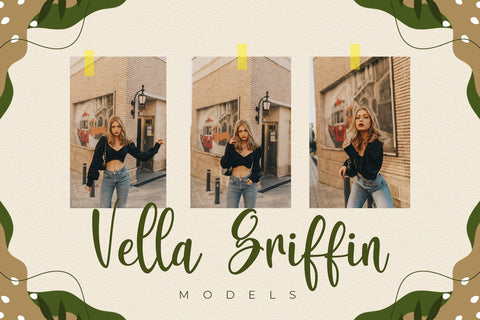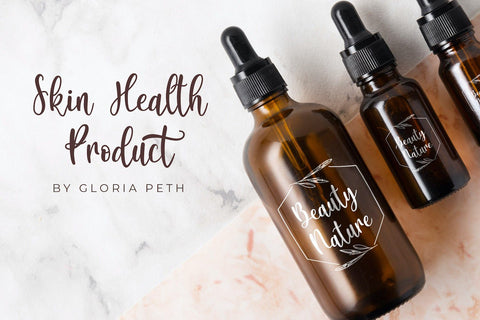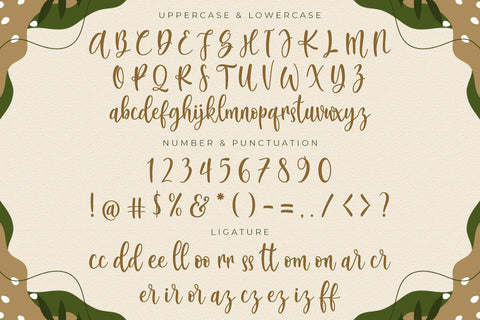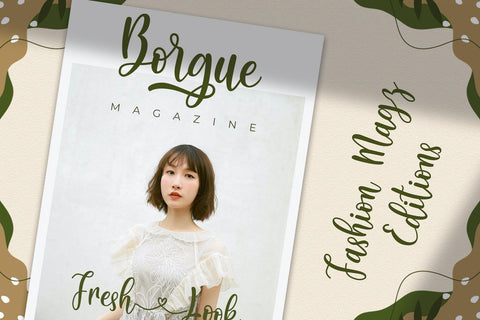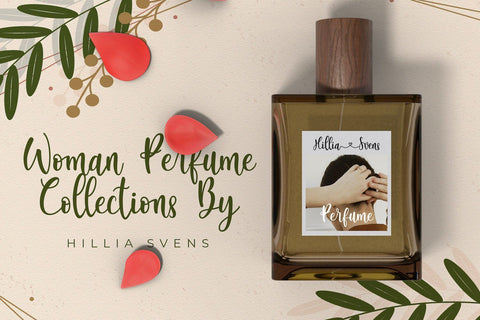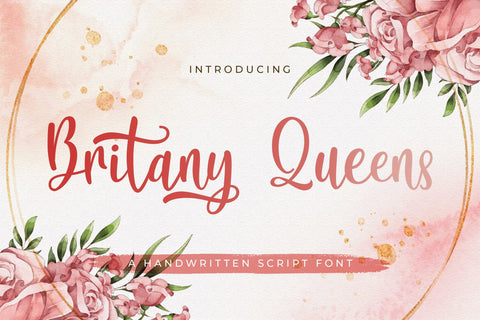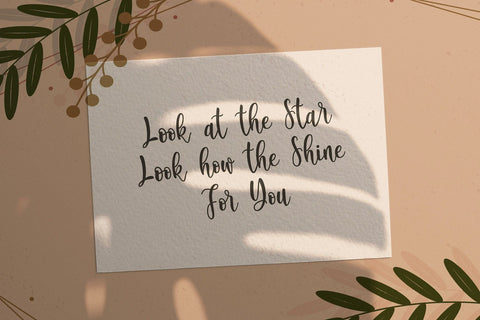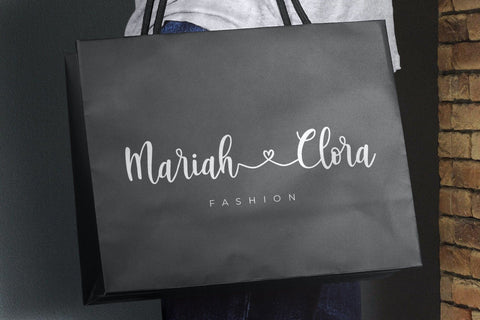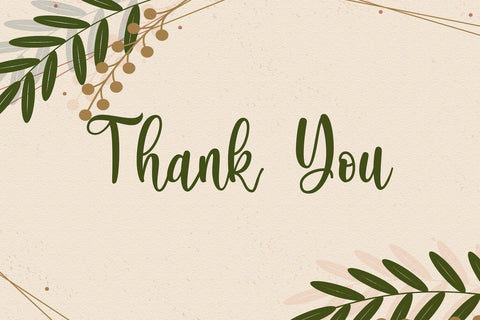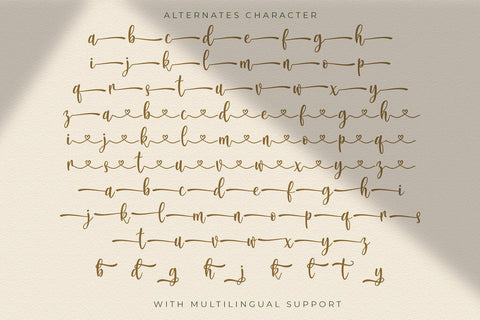
Britany Queens - Handwritten Font
Introducing Britany Queens - Handwritten Font
Britany Queens is a delicate, elegant and flowing handwritten font. It has beautiful and well balanced characters and as a result, it matches a wide pool of designs. Add it to your most creative ideas and notice how it makes them come alive!